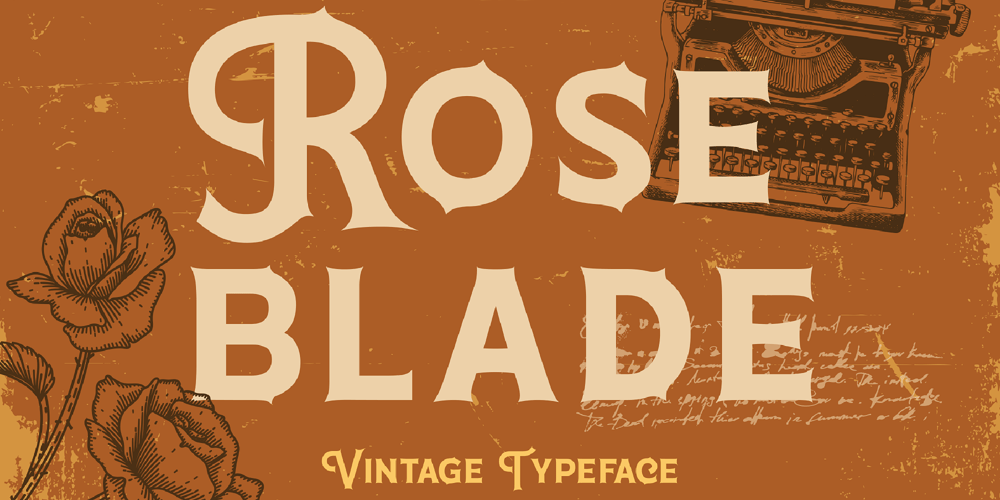
Roseblade Font Family was designed by Igor Ovsyannykov and published by Hipfonts. Roseblade contains 1 styles and family package options. Step back in time and add a touch of elegance to your designs with Roseblade, the vintage typeface inspired by the delicate beauty and subtle danger of a rose. Each letter in Roseblade features intricate, thorn-like details, evoking the timeless allure of antique typography with a modern twist.Roseblade is perfect for those looking to infuse their projects with a sense of history and sophistication. Whether you’re designing a book cover, crafting an invitation, or creating a unique brand identity, Roseblade adds a distinct, nostalgic feel that captivates and engages.Unleash the romantic and slightly edgy charm of Roseblade in your designs. Let this exquisite typeface transform your creative projects into timeless masterpieces that leave a lasting impression. Add Roseblade to your design arsenal today and watch your work blossom with style and sophistication!